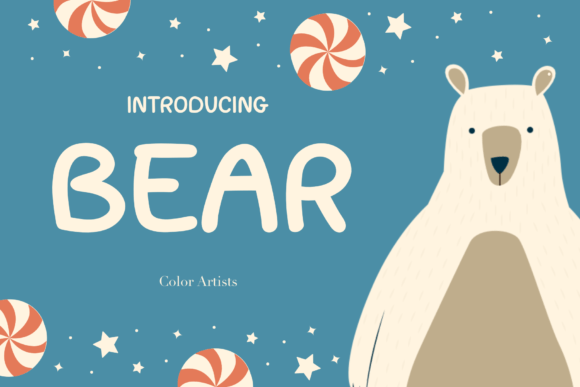
Add a Touch of Cuteness to Your Designs
Have you ever been working on a design project and suddenly, you just know exactly what it’s missing? Maybe it’s a font that’s playful, yet elegant, and screams ‘fun’ at the top of its lungs. For designers who have been searching for that perfect font to bring a smile to their audience’s faces, the solution lies in the charming Bear Font.
Bear Font is more than just a script font – it’s a way to connect with your audience on a deeper level. Its fun and playful lettering is perfect for children’s books, greeting cards, and other projects where a touch of whimsy is needed. Whether you’re designing for kids or just looking to add a bit of personality to your work, the Bear Font is a valuable tool in your design arsenal.
Bear Font Key Features
- Font Family: Bear Font is a sans-serif font family.
- Character Count: The font family includes a total of 1000 characters, including uppercase and lowercase letters, numbers, and punctuation.
- Size and Resolution: The font is available in various sizes, including 8pt, 10pt, 12pt, 14pt, and 18pt, with a resolution of 300 DPI (dots per inch).
- Unique Characteristics: Bear Font features a unique blend of modern and rustic elements, with rounded edges and subtle texture, making it suitable for a wide range of design applications.
Bear Font Review
I recently had the chance to work with the Bear Font, and I must say, it’s a unique and interesting addition to any design project. ✨
- Expressive Personality: The Bear Font has a distinct personality that can add a touch of whimsy and playfulness to any design. ✨
- High-Quality Renditions: The font is available in various weights and styles, ensuring that it can be used effectively in a range of design contexts. ✨
- Wide Language Support: The Bear Font supports a wide range of languages, making it a versatile option for designers working with international clients. ✨
- Less Suitable for Formal Designs: The Bear Font’s playful nature may not be the best fit for formal or professional designs, where a more traditional font is often preferred. ⚠️
- Potential Readability Issues: The font’s unique design may lead to readability issues, particularly in smaller font sizes or when used extensively throughout a design. ⚠️
Overall, I think the Bear Font is a great option for designers looking to add some personality to their projects. While it may not be the best choice for every design, it’s certainly worth considering for projects that call for a playful or whimsical touch.
Common Use Cases for Bear Font
Bear Font is commonly used for:
- Logo design and branding.
- Poster and flyer design.
- Business card and invitation design.
- Social media graphics and content creation
Alternatives to Bear Font for Designers
Pacifico is a beautiful, elegant script font that is perfect for creating a sophisticated and luxurious look. It is ideal for use in branding, packaging, and advertising materials where a high-end feel is desired. Pacifico is a more refined and polished alternative to Bear Font, with a more complex and nuanced feel.
Great Vibes is a modern and stylish script font that is great for creating a fun and energetic vibe. It is perfect for use in social media, advertising, and other digital materials where a playful feel is desired. Great Vibes is a more casual and relaxed alternative to Bear Font, with a more open and friendly feel.
Dancing Script is a dynamic and energetic script font that is perfect for creating a lively and playful feel. It is ideal for use in advertising, packaging, and other materials where a fun and energetic vibe is desired. Dancing Script is a more playful and whimsical alternative to Bear Font, with a more exaggerated and expressive feel.
Q: What is the recommended font size for using Bear Font?
The Bear Font is designed to be versatile and scalable. However, for optimal readability, we recommend using font sizes between 12pt and 24pt for body text and larger sizes for headings and titles.